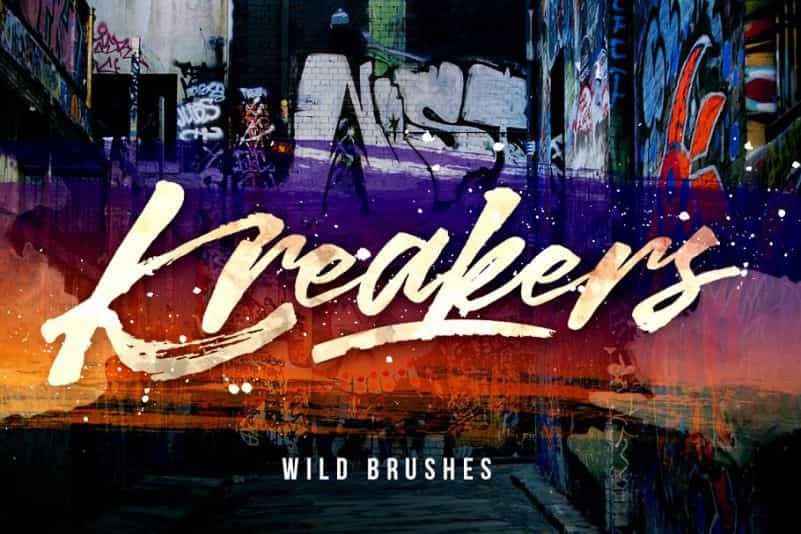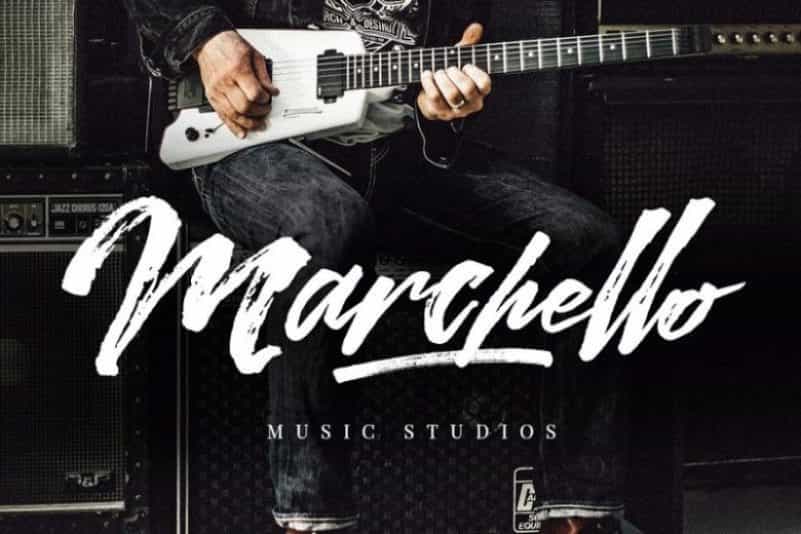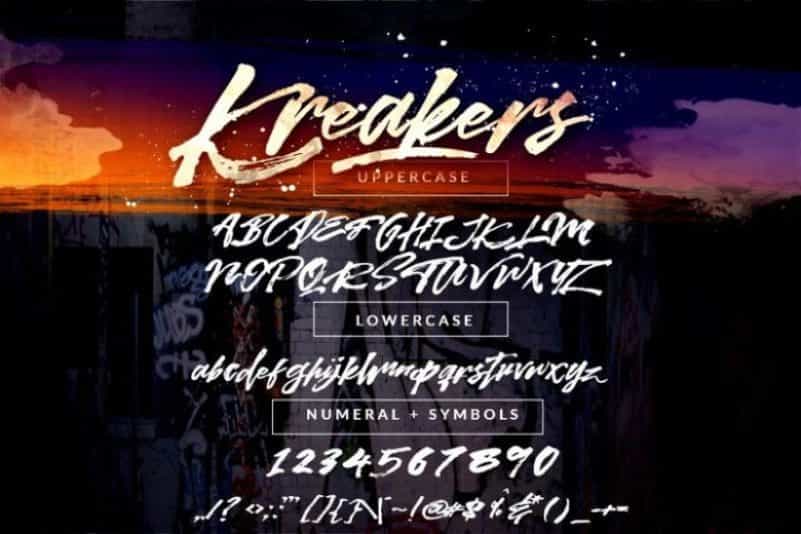
Kreakers is a hand-brushed typeface with realistic and natural dry brush strokes. It is a brand new and stylish handwritten font that will help you design logotypes, posters, digital lettering arts, clean designs, branding projects, signages, merchandise, and social media posts.